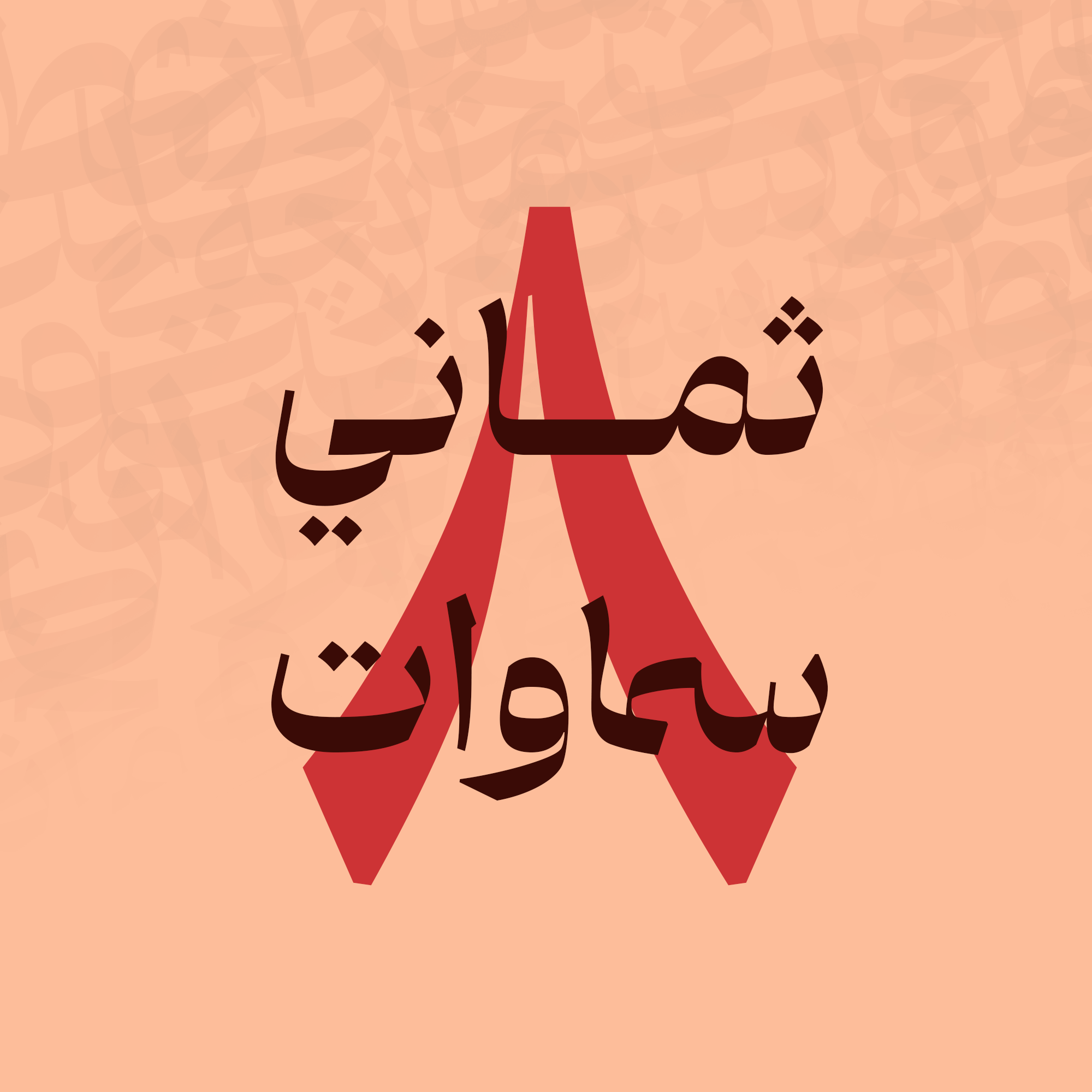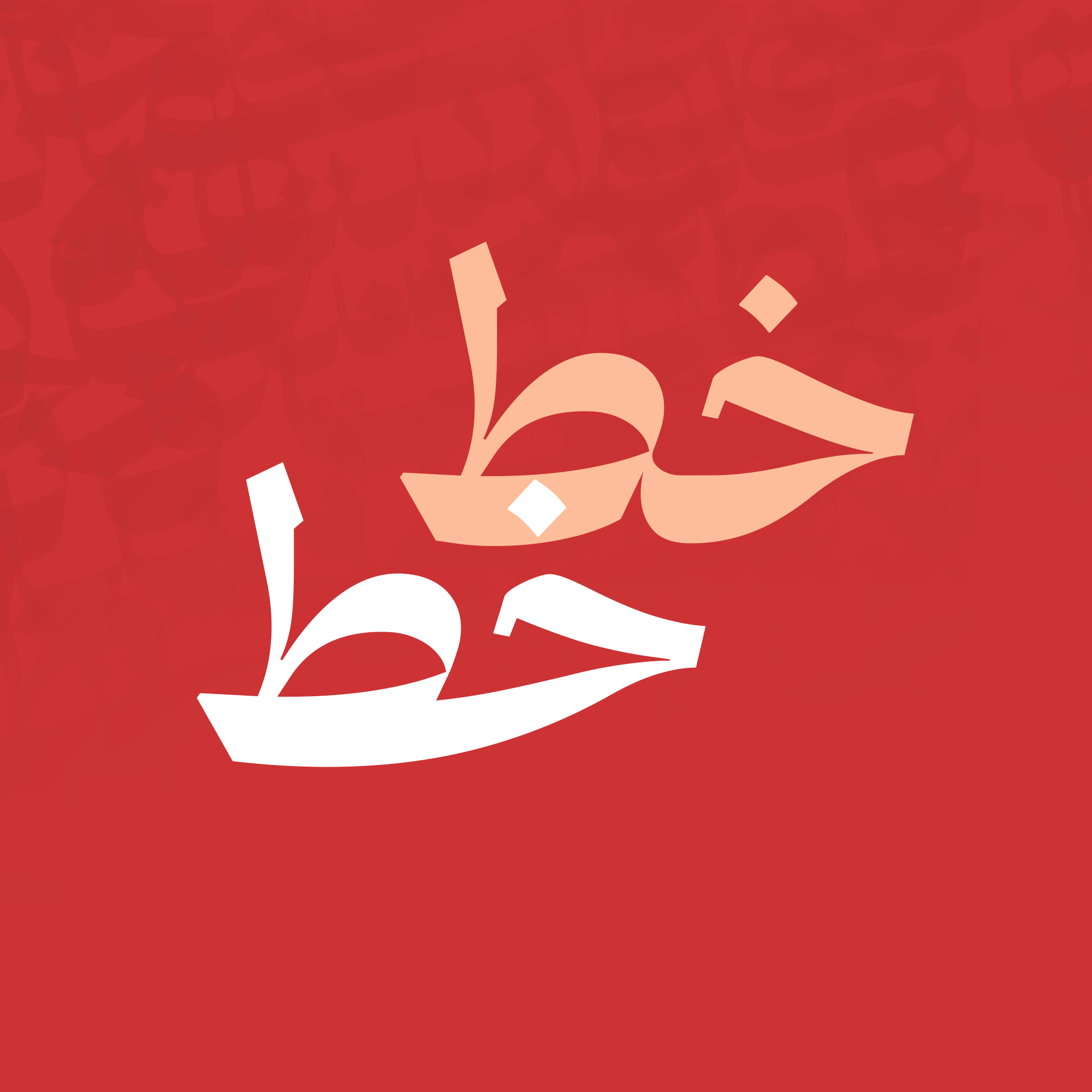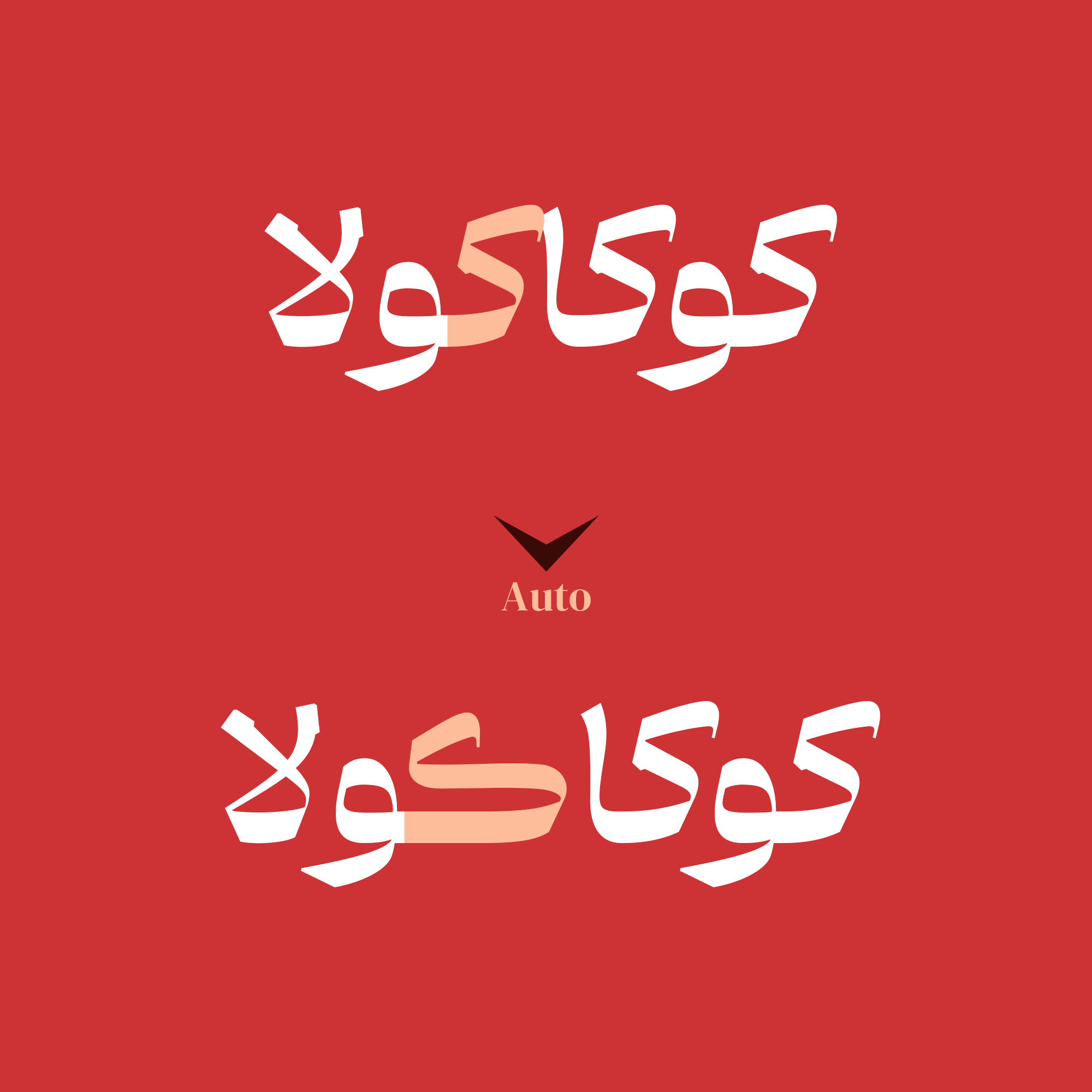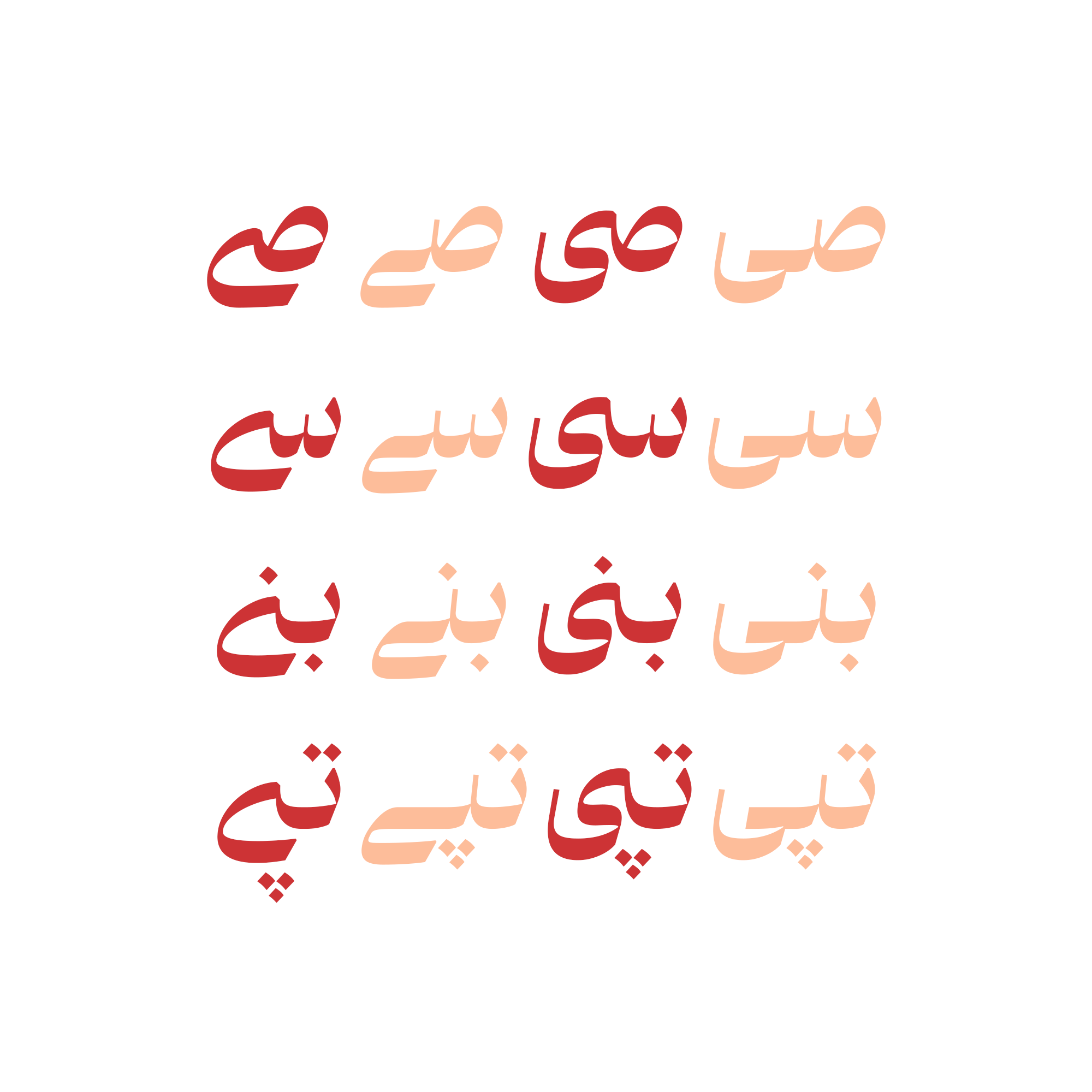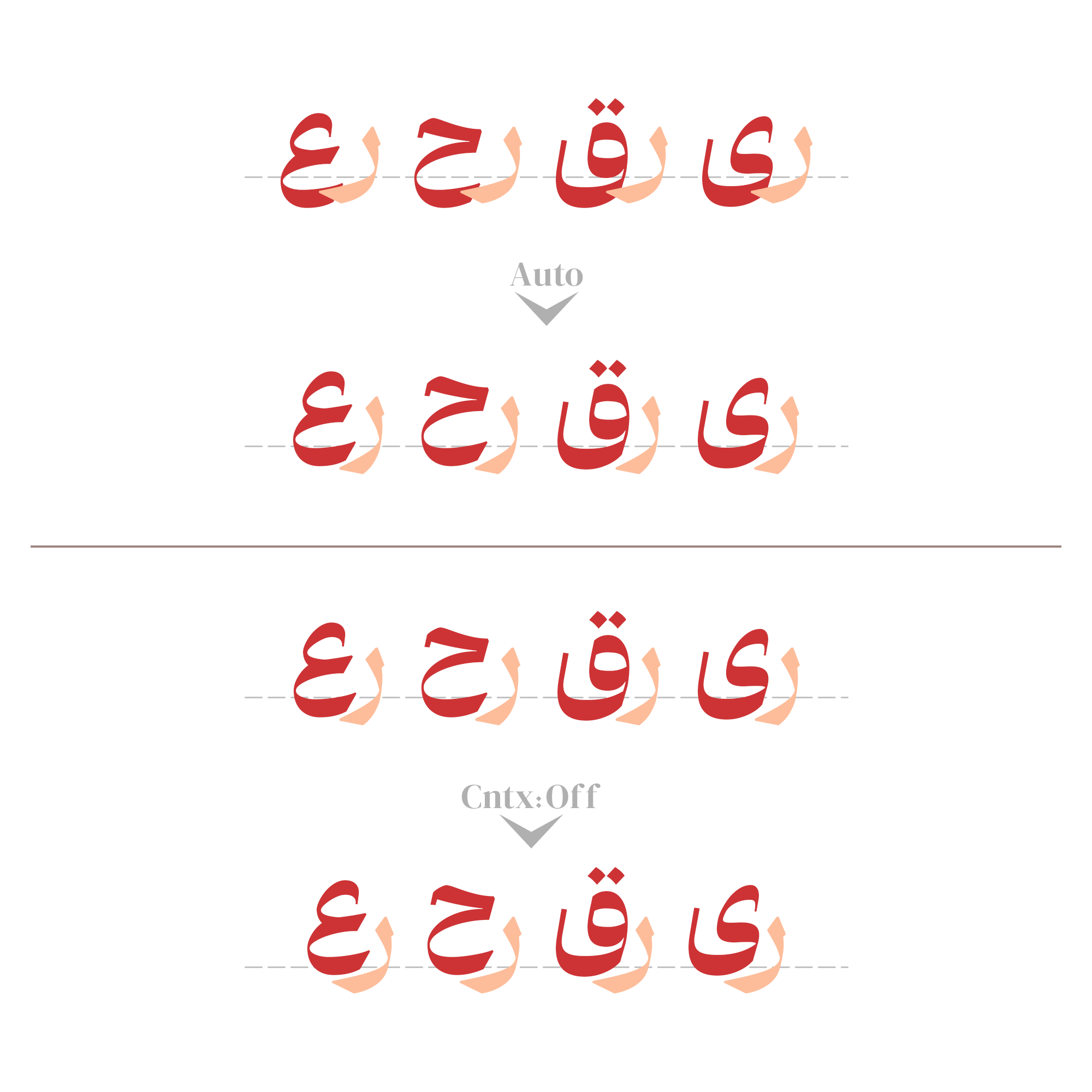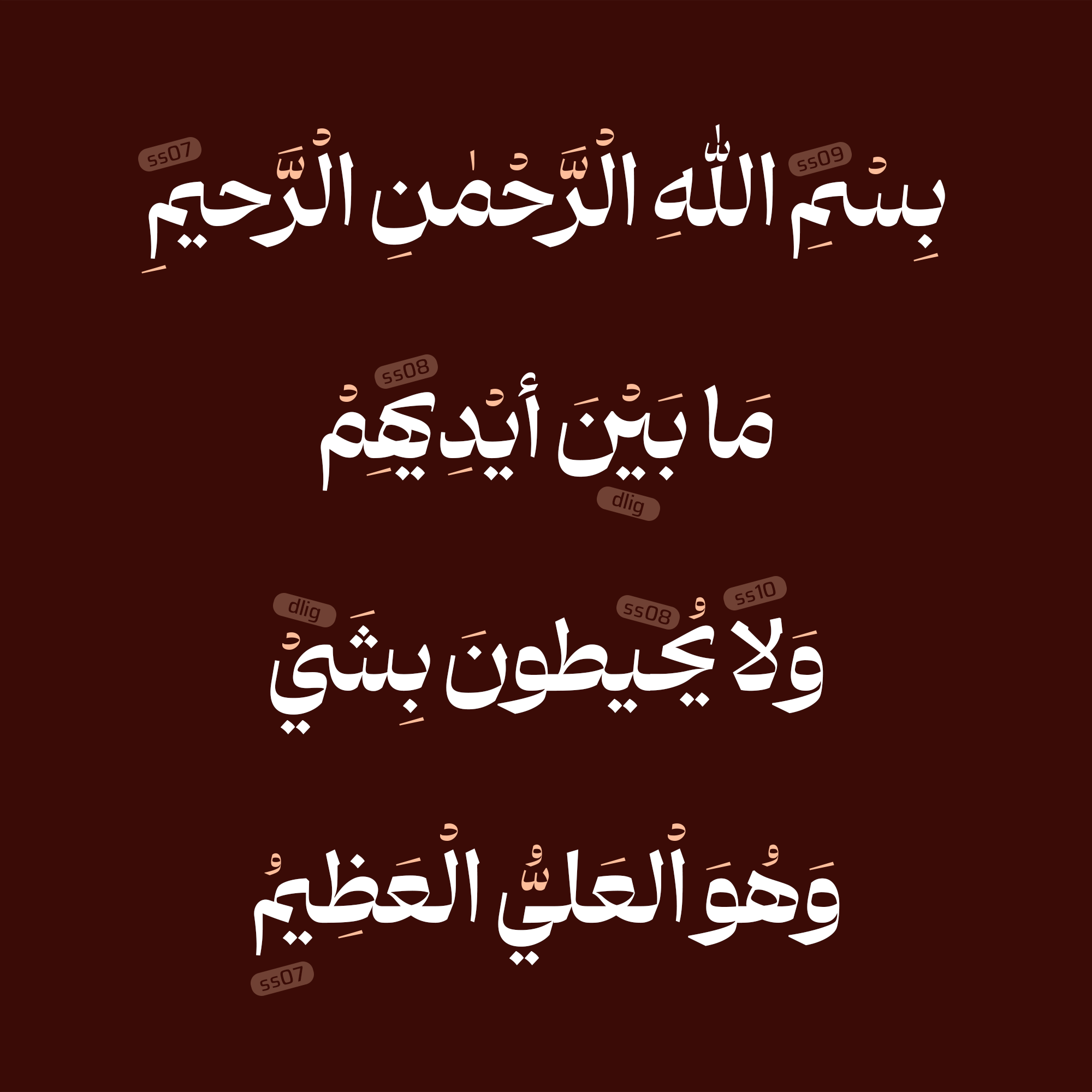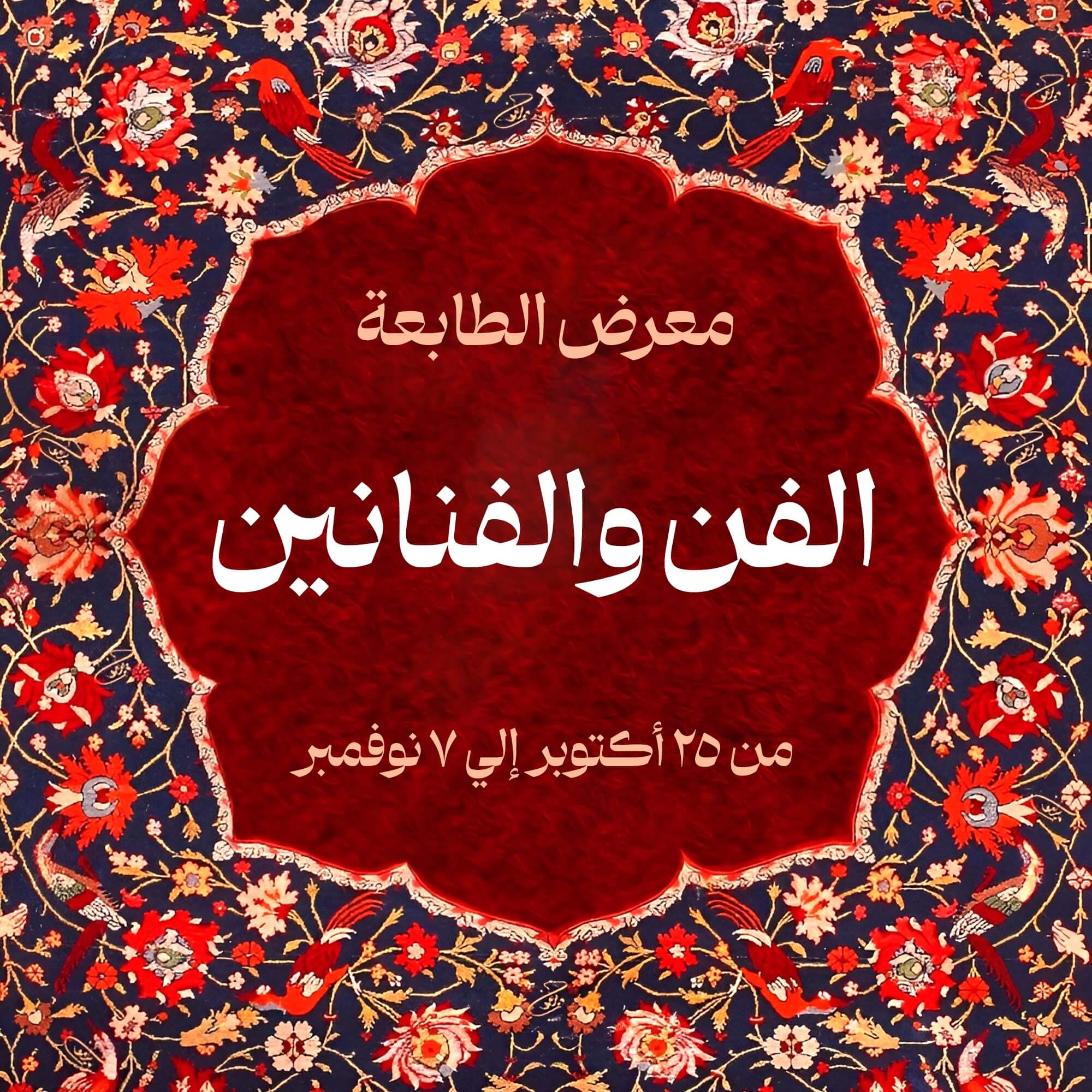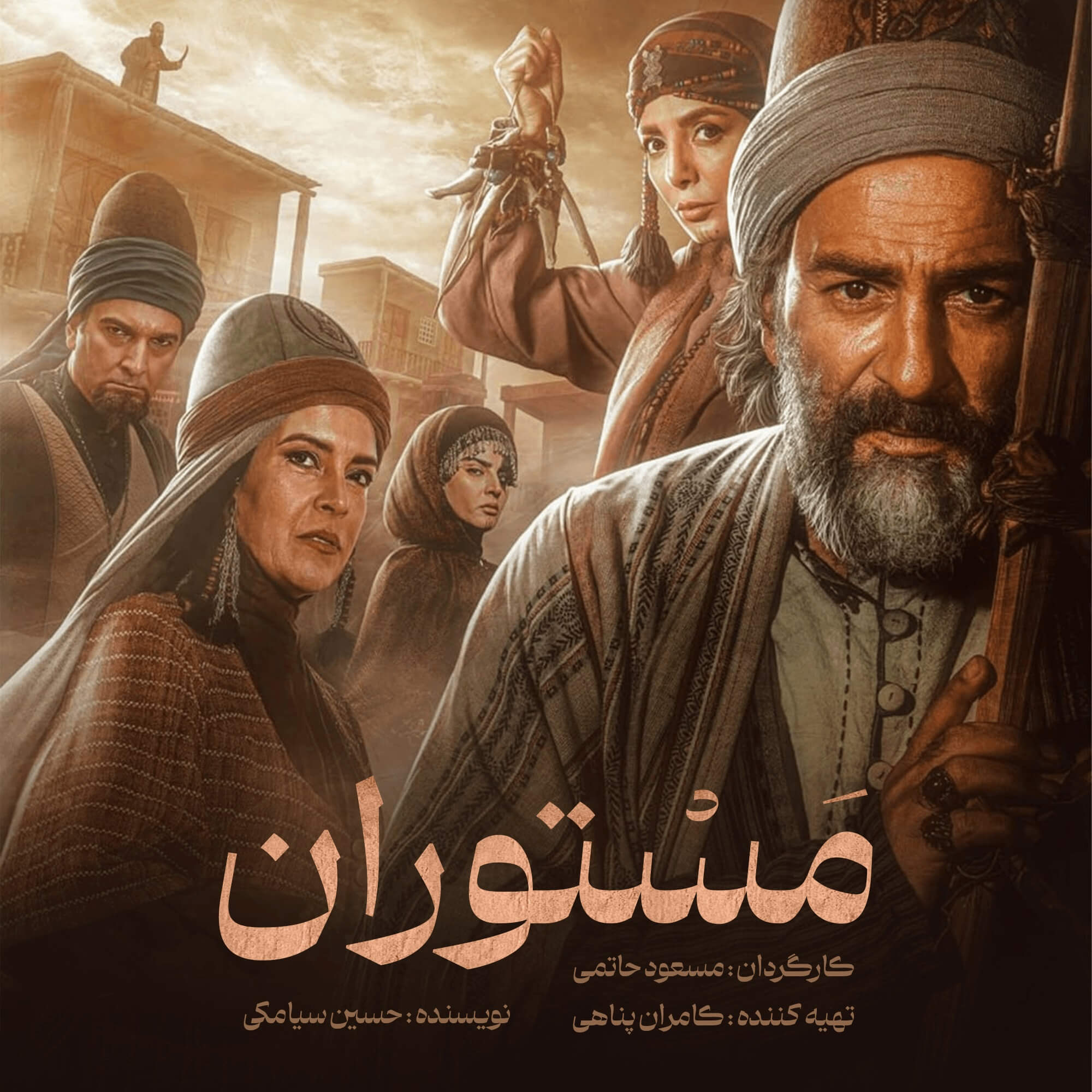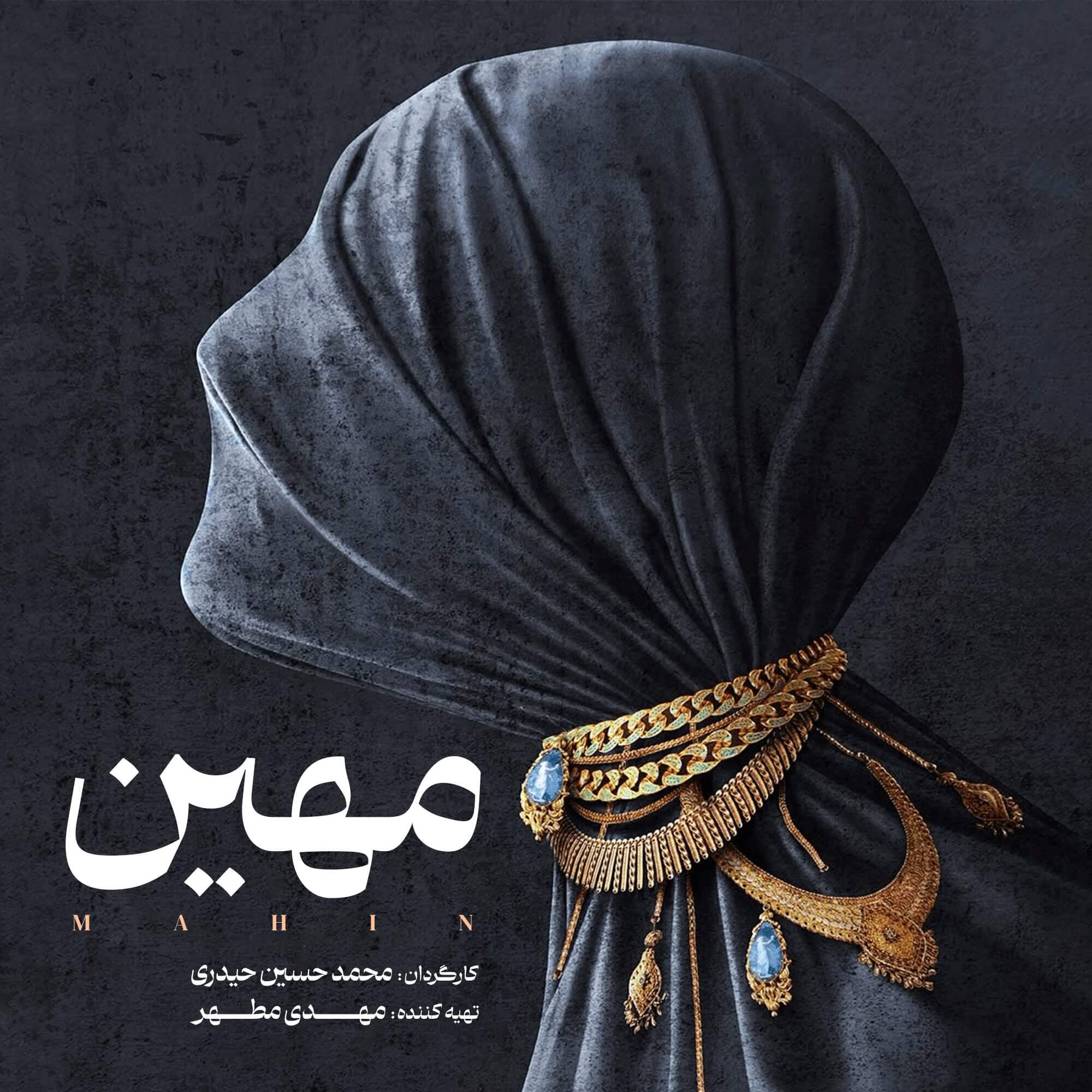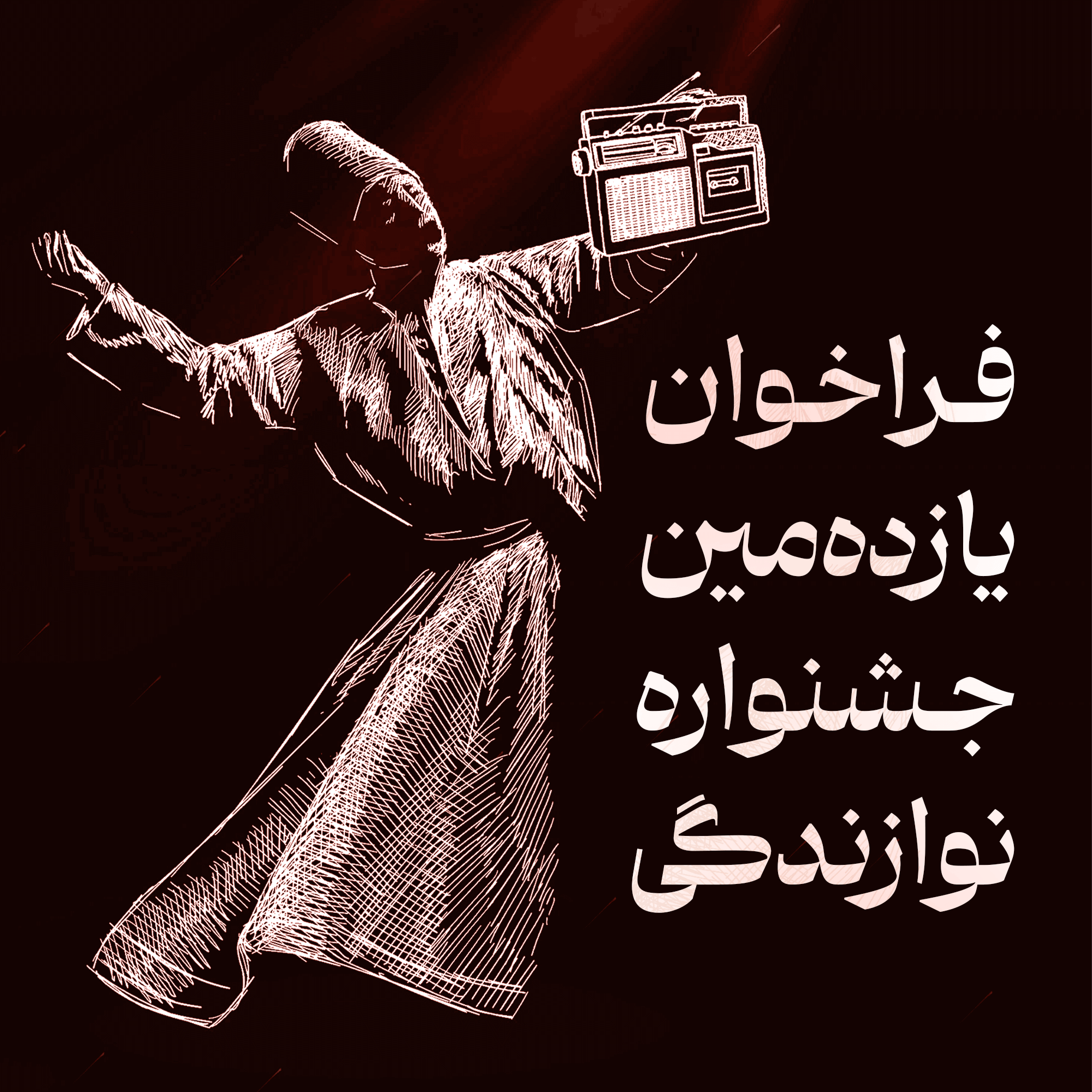
Divan
Divan, the timeless beauty of script;
‏The Divan Typeface, with its dignified, classic, and charismatic character, marks the intersection between a glorious past and a refined present.
‏The strength of yesterday and the finesse of today seek to share one throne and reign in harmony.
‏This high-contrast, single-weight display typeface boldly reimagines the spirit of the Thuluth script, while gracefully adhering to the structural logic of Naskh.
‏Divan offers extensive language support—Persian, Turkish, Arabic, Urdu, Kurdish, and Jawi—making it a distinctive choice for discerning designers in cultural, artistic, and literary projects, traditional and nostalgic themes, advertising spaces, posters, covers, book jackets, headlines, titles, short texts, and signage for historic, traditional, and artistic venues.
‏In Divan Typeface, the soul of classical calligraphy walks hand in hand with contemporary innovation, transforming writing into a true work of art